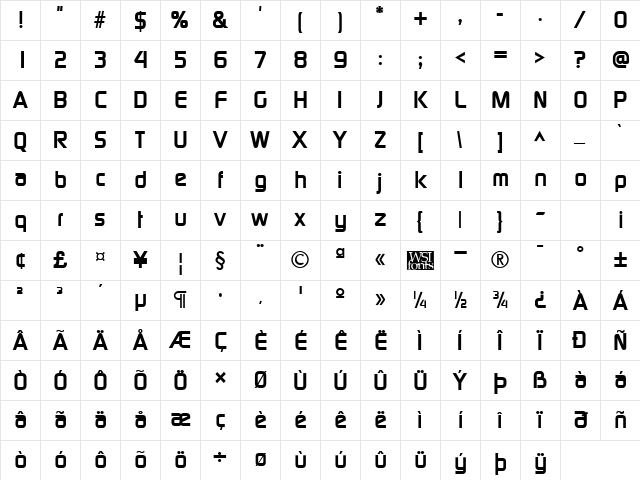
Modaerne Bold
Modaerne Bold Family
Modaerne Bold
Design Context for Modaerne
Modaerne is a composed and adaptable typeface that performs quietly and consistently across a wide range of design contexts. Its bold stroke weight gives it real presence on the page.